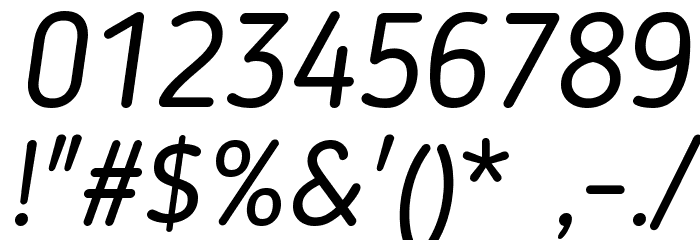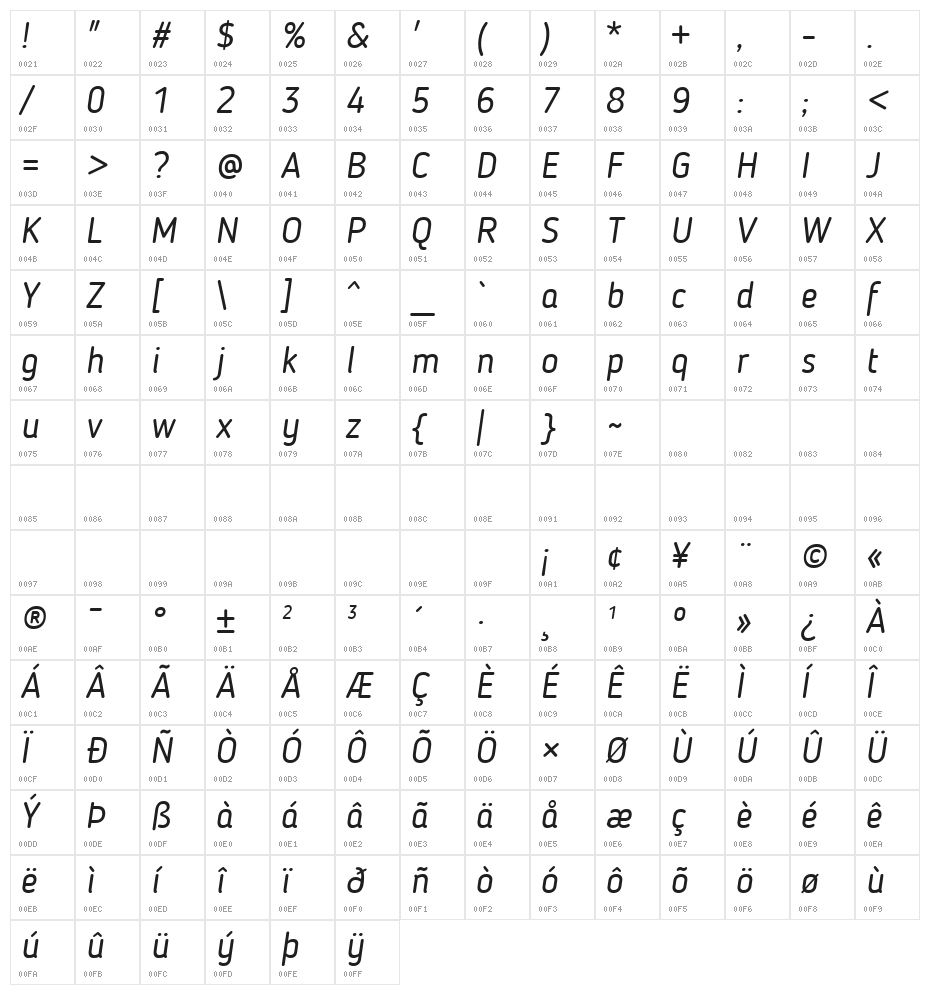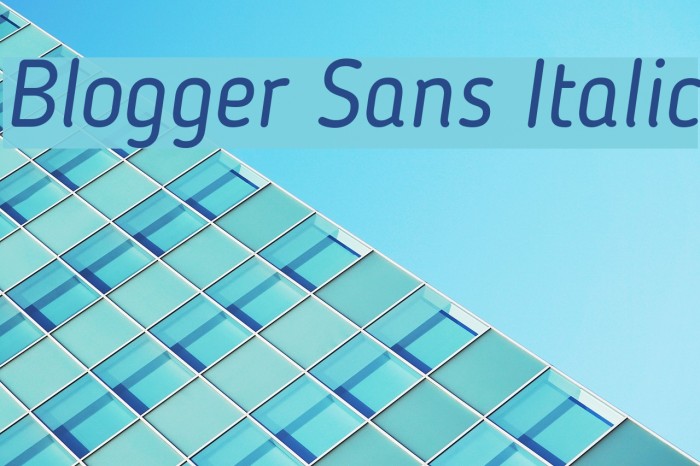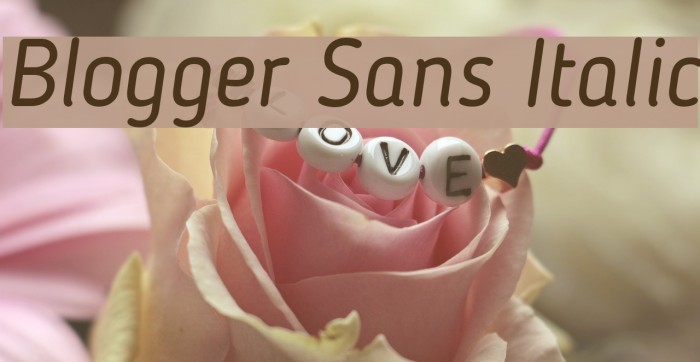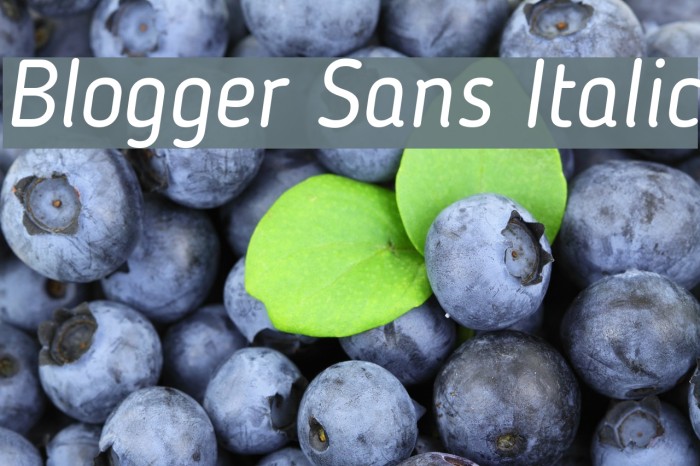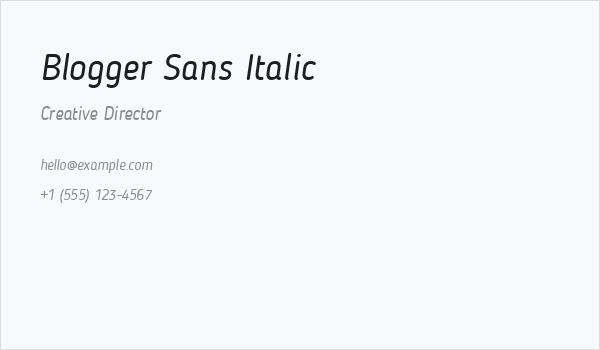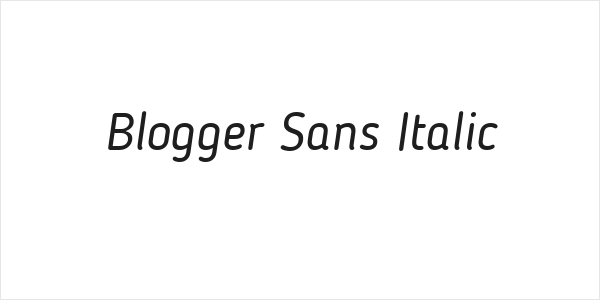
Blogger Sans Italic Font
Blogger Sans Italic Description
This font features a clean and modern sans-serif style with a slight italic slant, giving it a dynamic and contemporary appearance. The characters are well-proportioned with a consistent stroke width, contributing to its readability. The design is sleek and minimalistic, making it suitable for a variety of applications. The numerals are clear and distinct, and the special characters are well-integrated into the overall design. The font's simplicity and elegance make it versatile for both digital and print media.